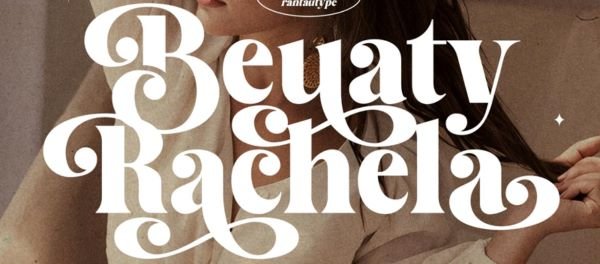
Beauty Rachela Font by Rantautype Studio is a retro-flavoured handwritten script that balances old-world elegance with a distinctly modern sensitivity. Its flowing letterforms carry a soft, romantic quality that translates beautifully across a wide range of design contexts.
Whether used on wedding stationery, feminine branding, editorial quotes, or product packaging, Beauty Rachela adds a layer of refinement and personal warmth that few script typefaces achieve. Free for personal use, with a commercial license available for purchase.
Style: Retro, Handwritten, Script, Elegant